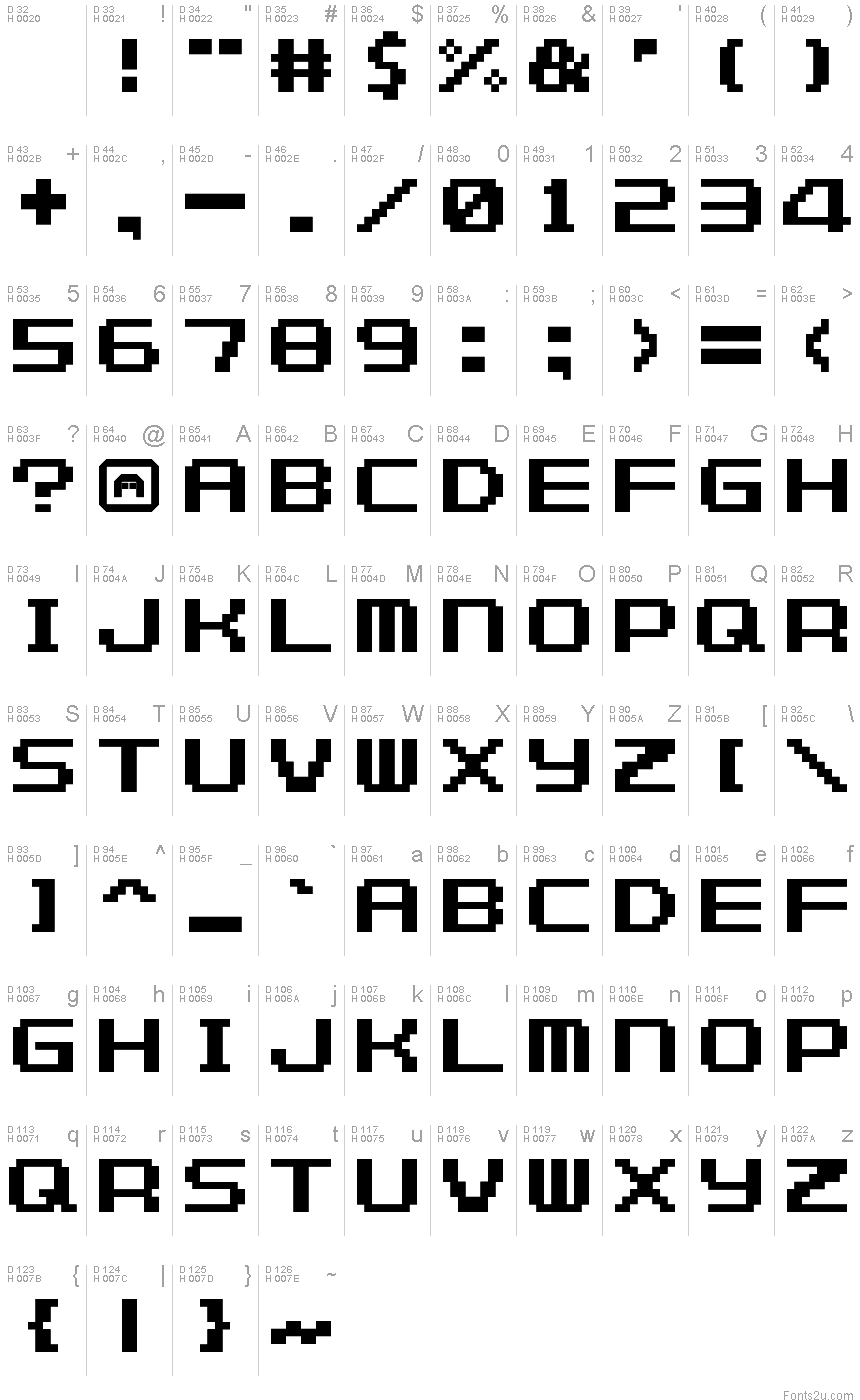
F-Zero GBA Text 1 Regular
Font used in Create/Select Profile and the track names, made some custommade Cyrillic letters and some more latin letters, expect some more latin letters finished soon.